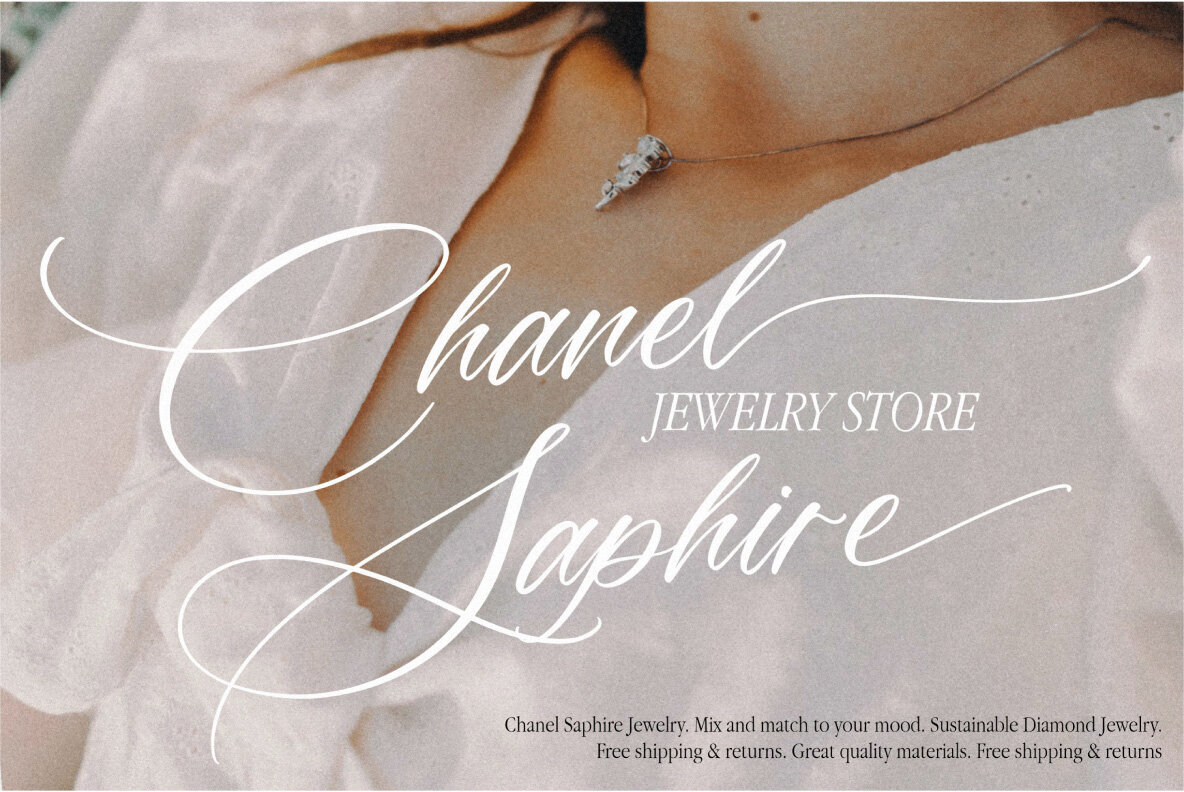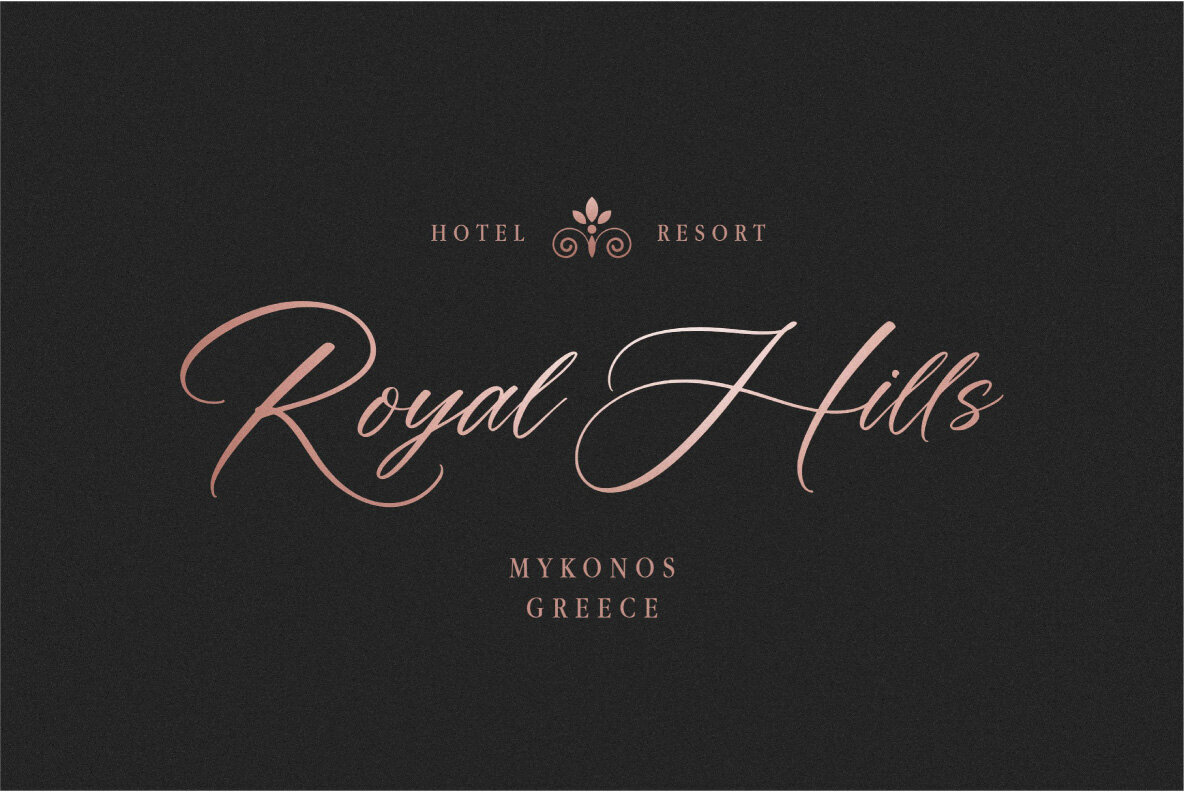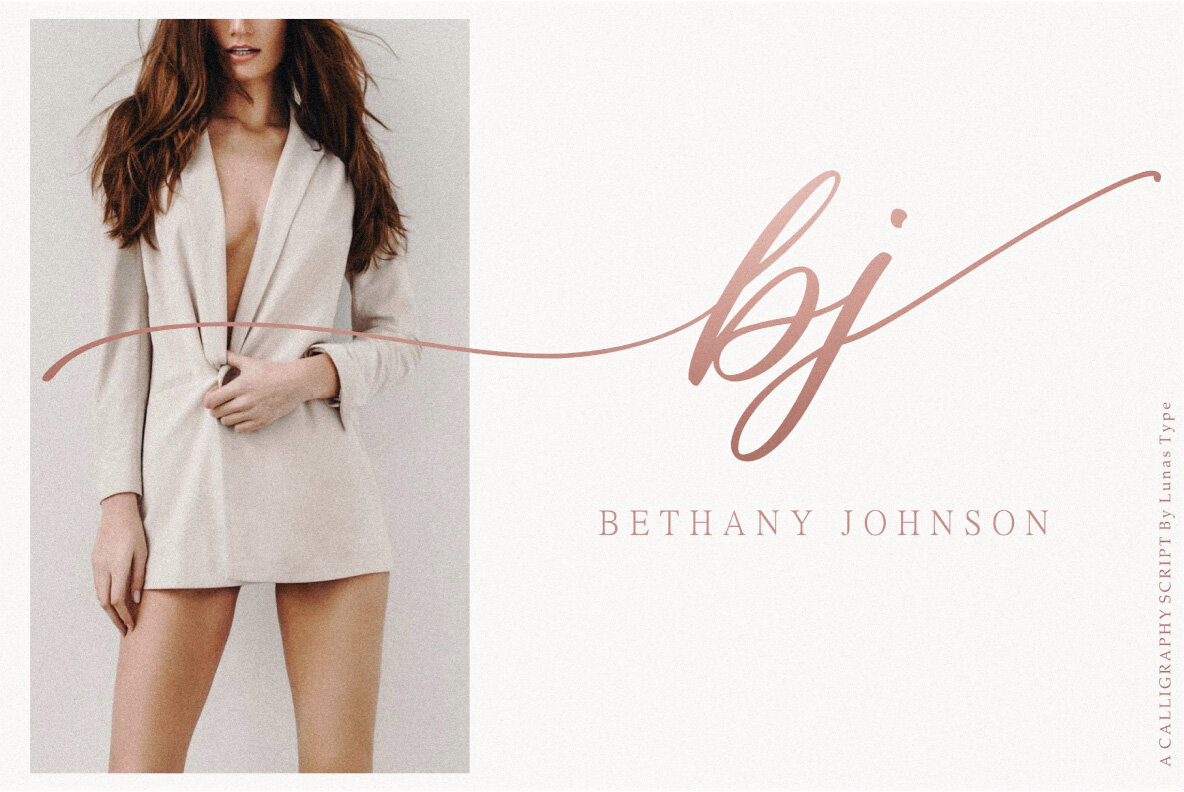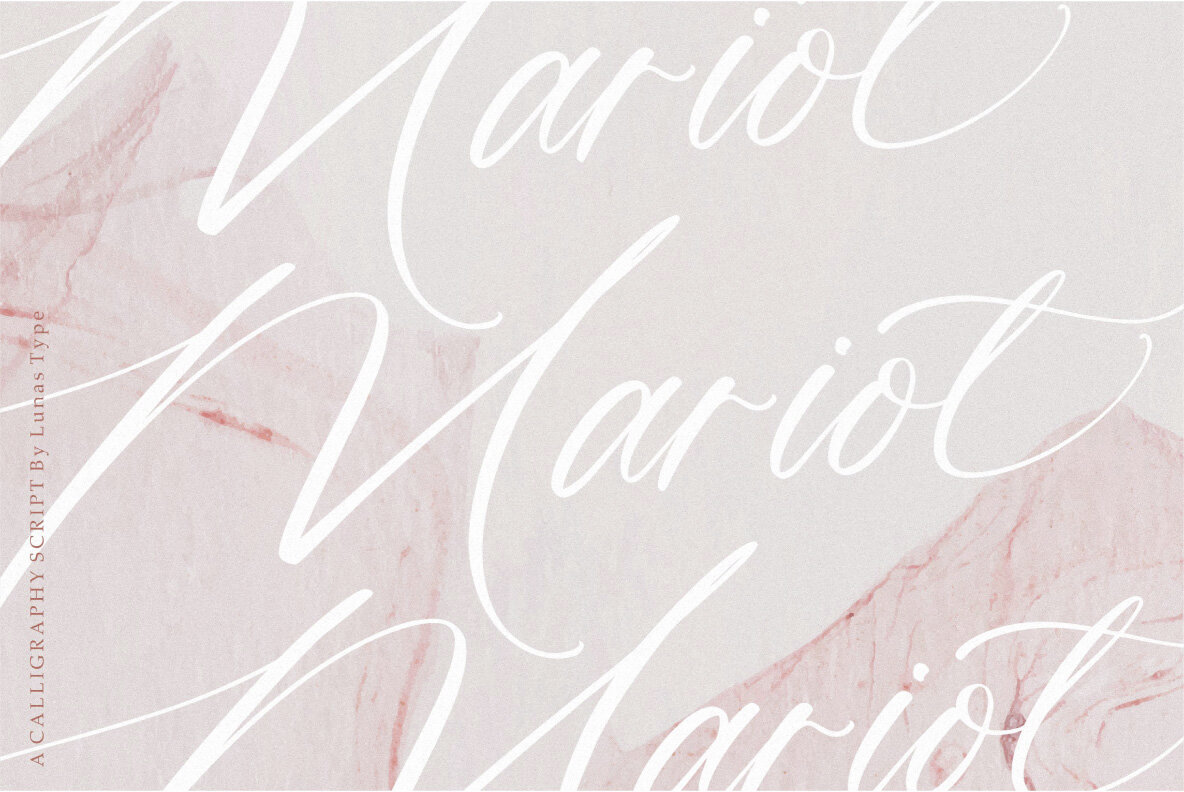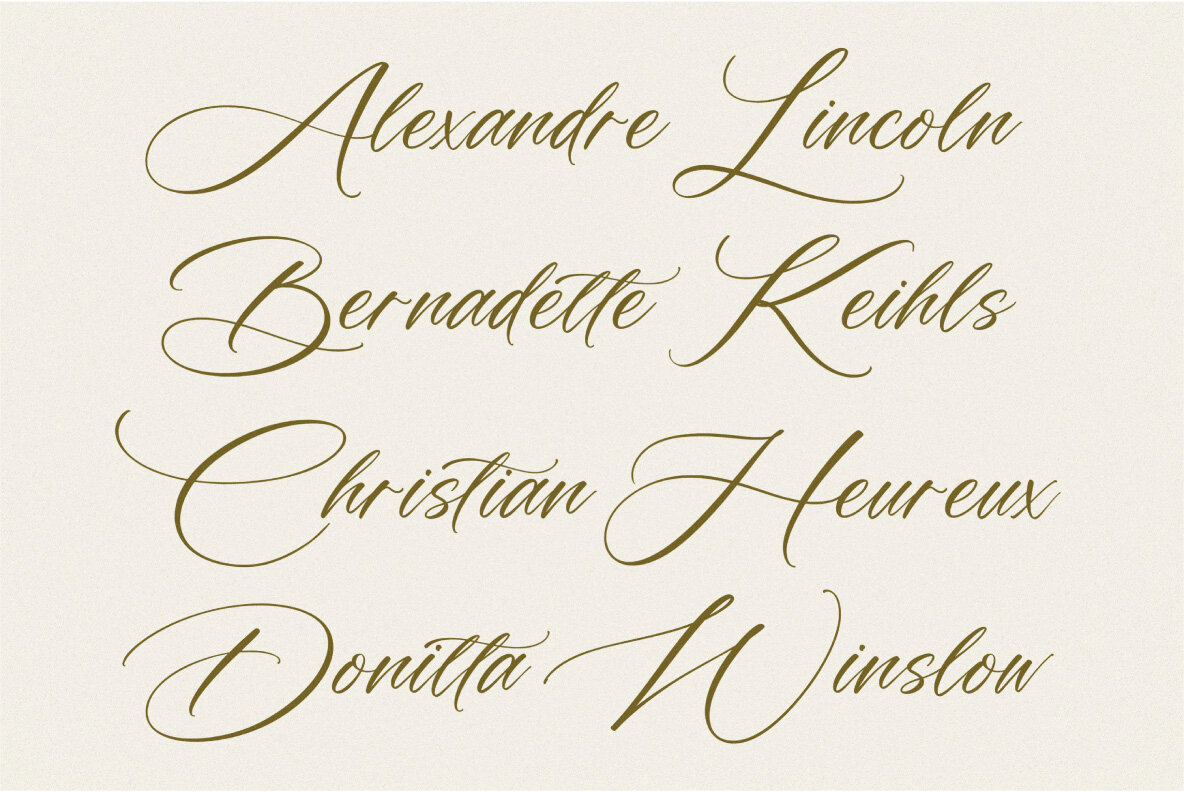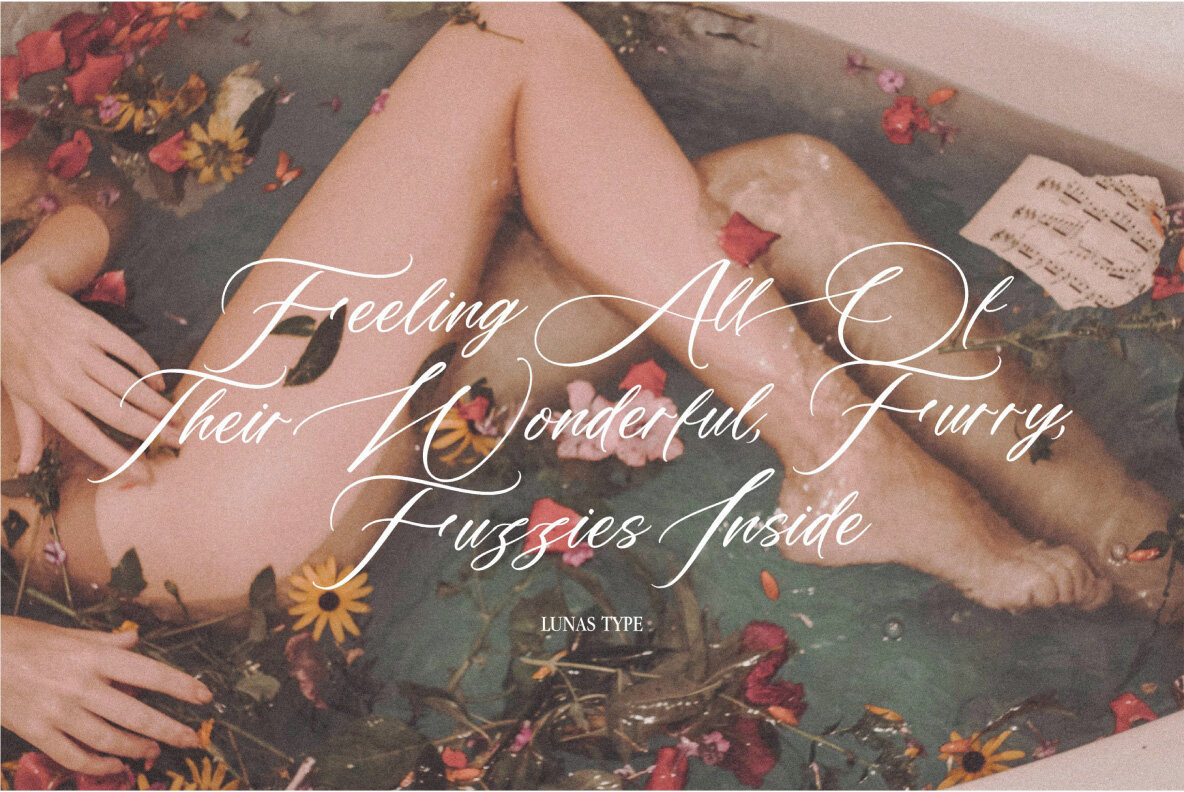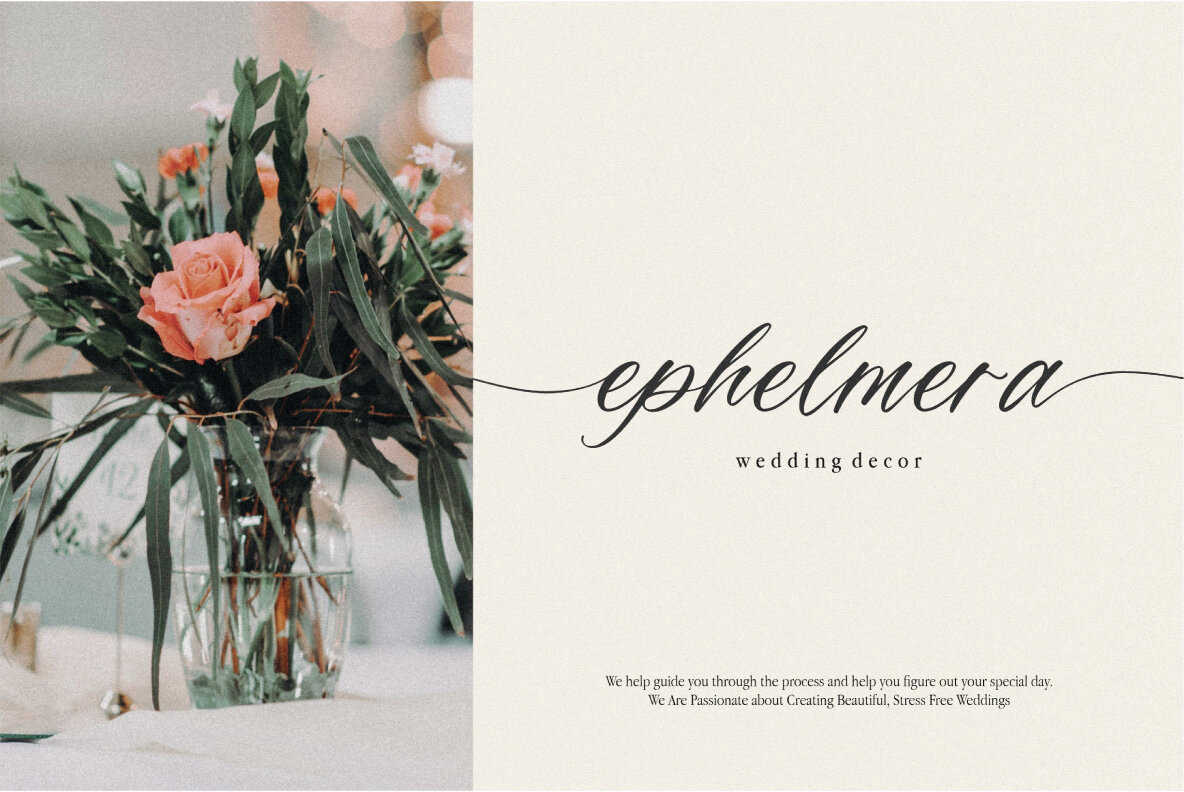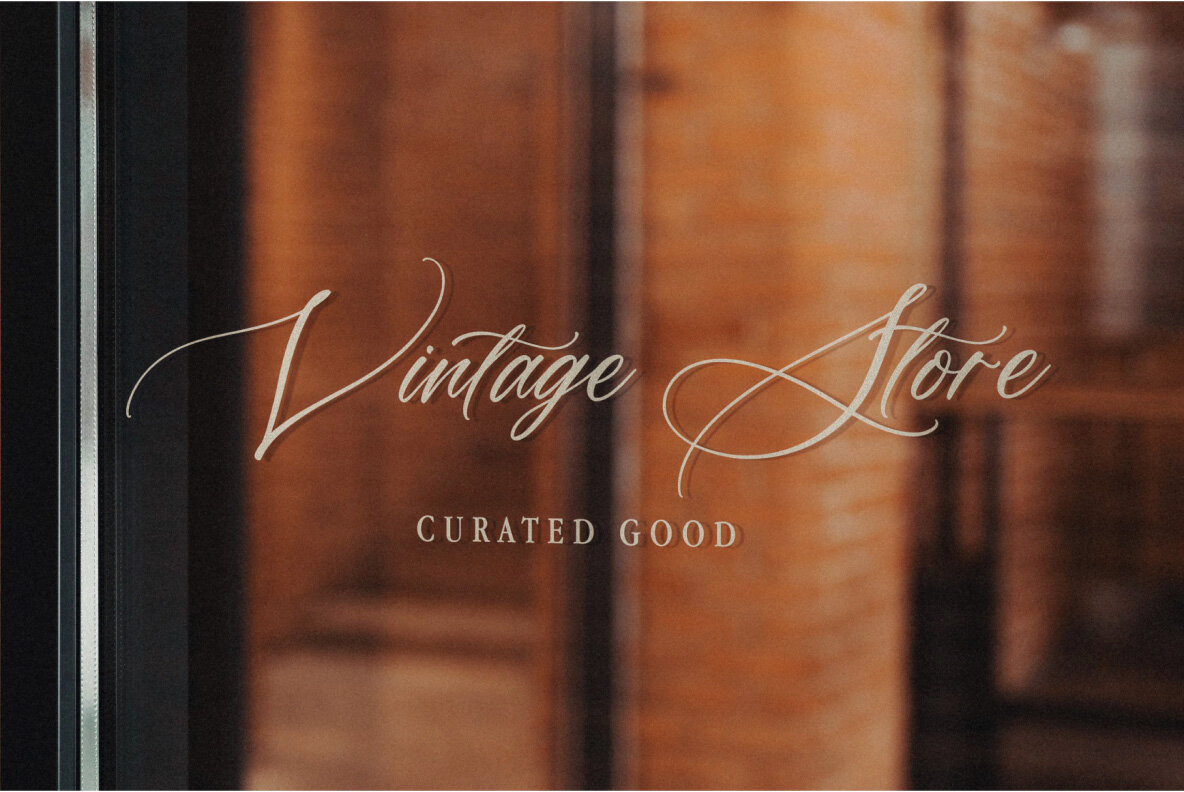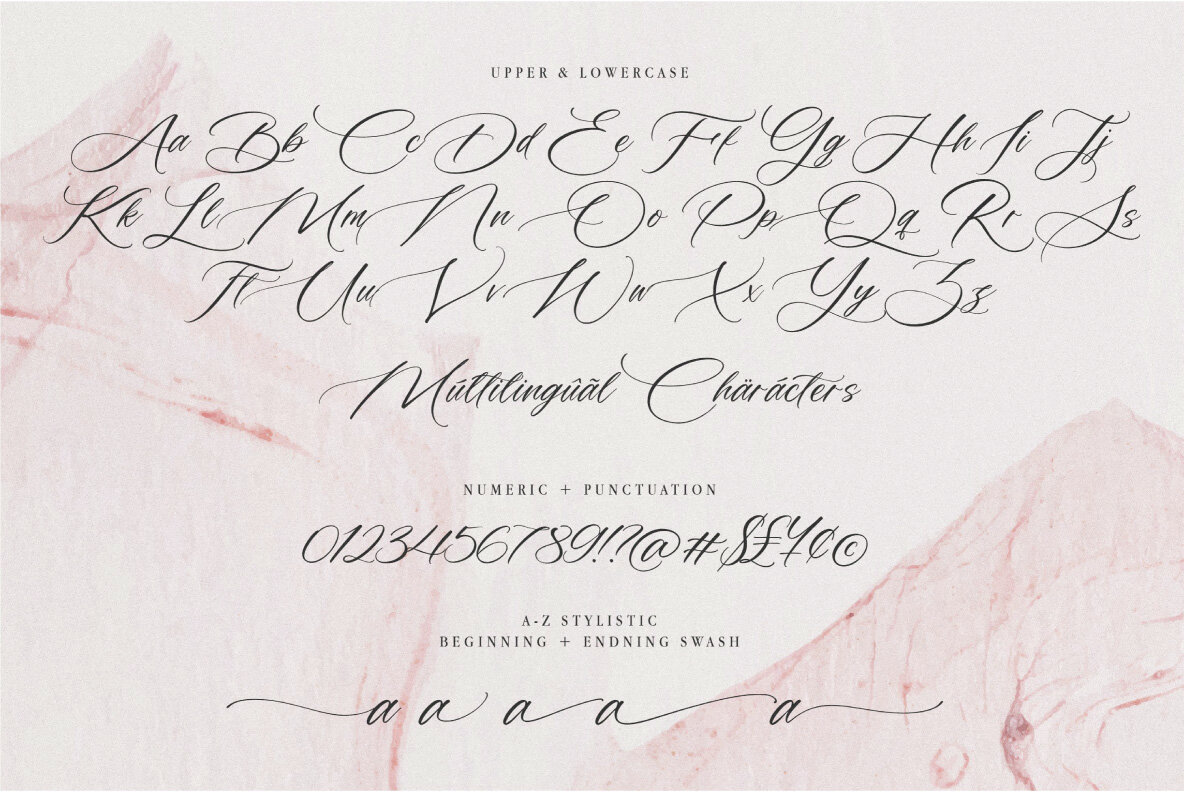
Alessandra Font
Alessandra Regular
Introducing Alessandra! A stunning script font inspired by the elegance of Victorian style. With its graceful curves and intricate details, Alessandra exudes a timeless beauty that captivates the senses. This font is adorned with exquisite ending and beginning swashes, adding a touch of refinement and sophistication to every letter. Perfectly suited for various design needs, Alessandra shines brightest on wedding invitations, greeting cards, and any project that calls for a touch of romance and charm.